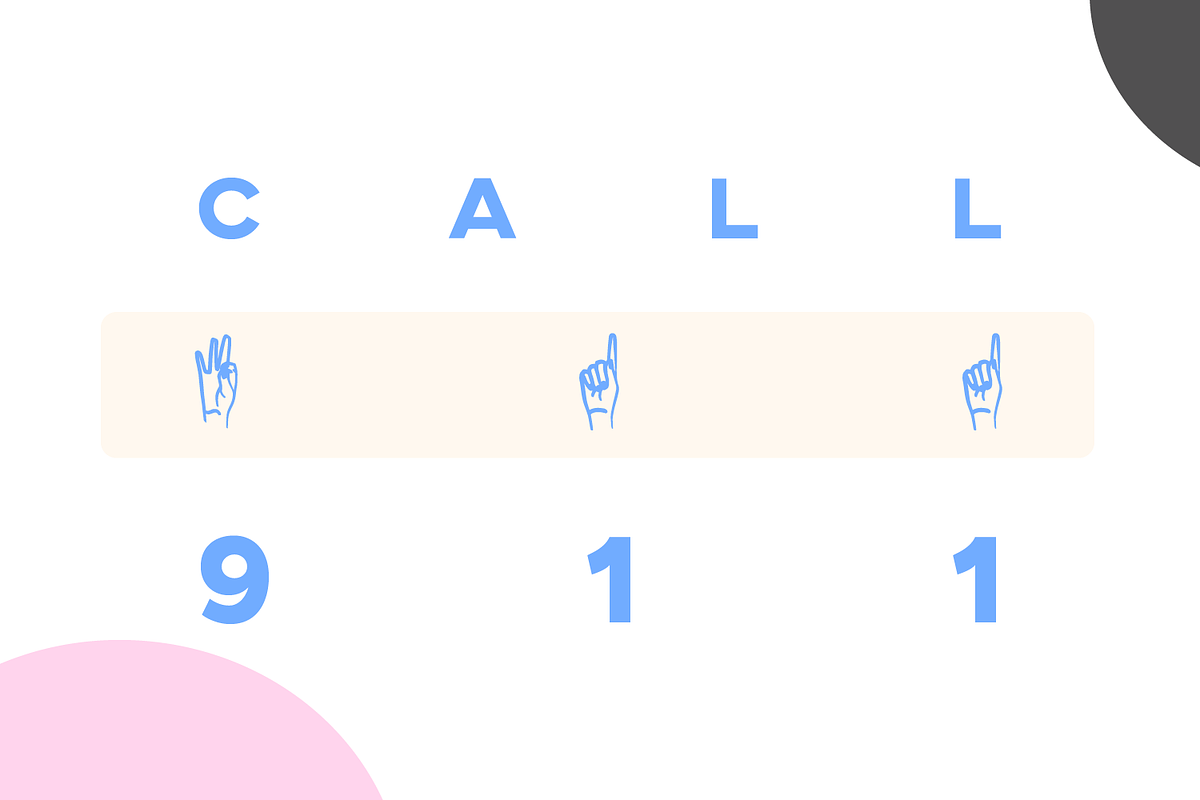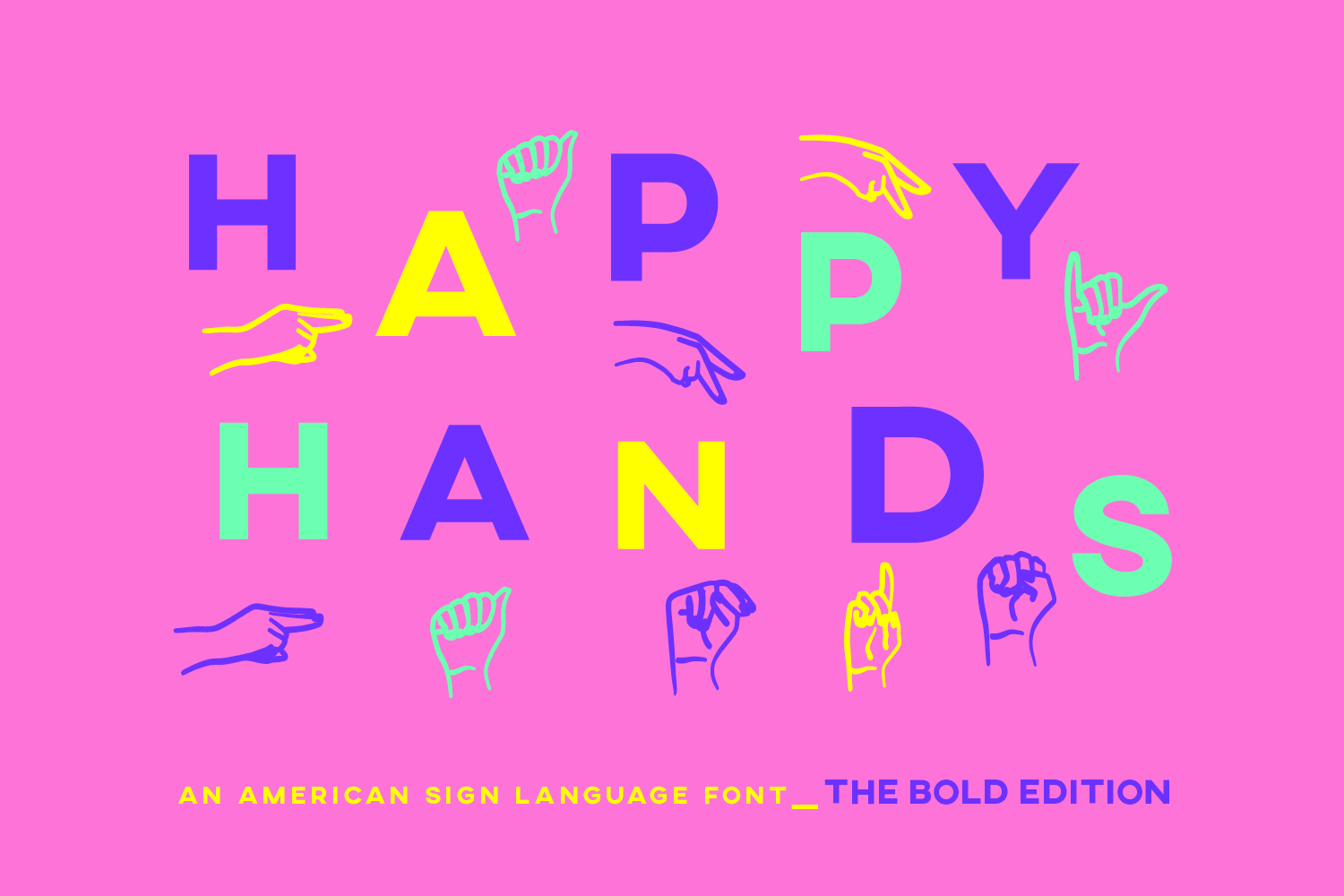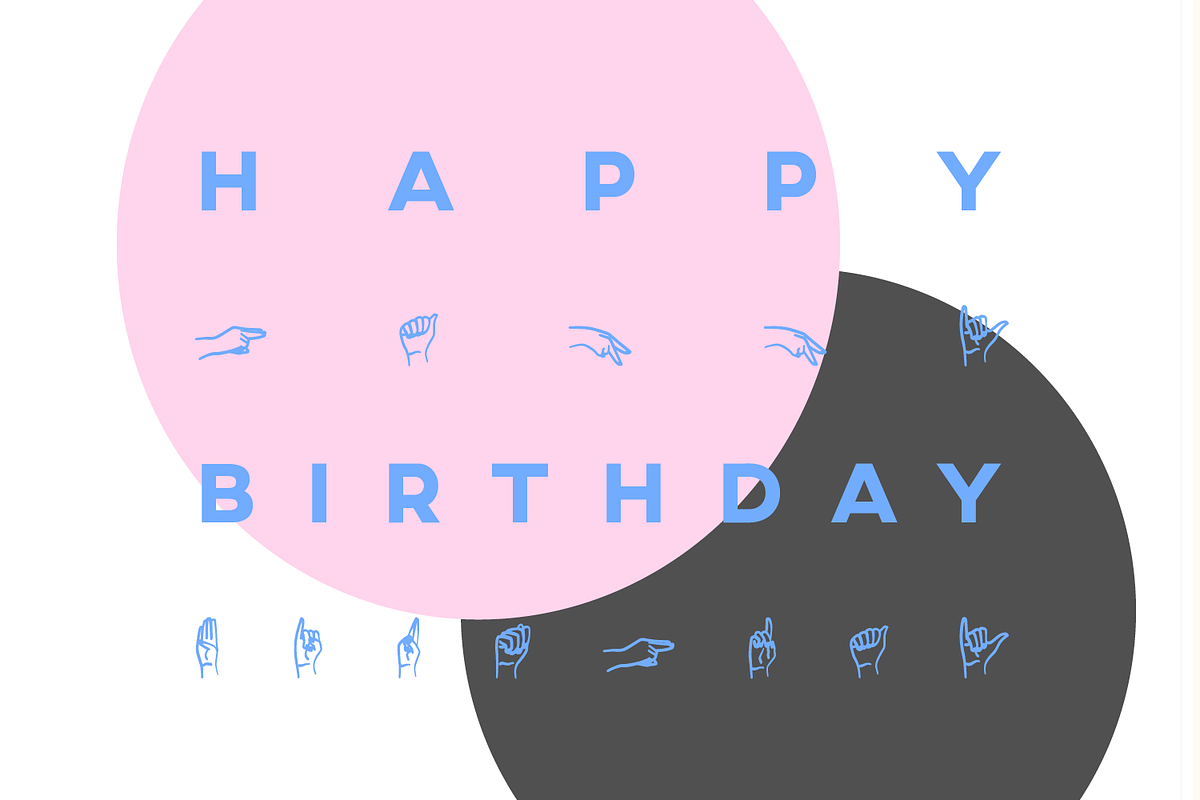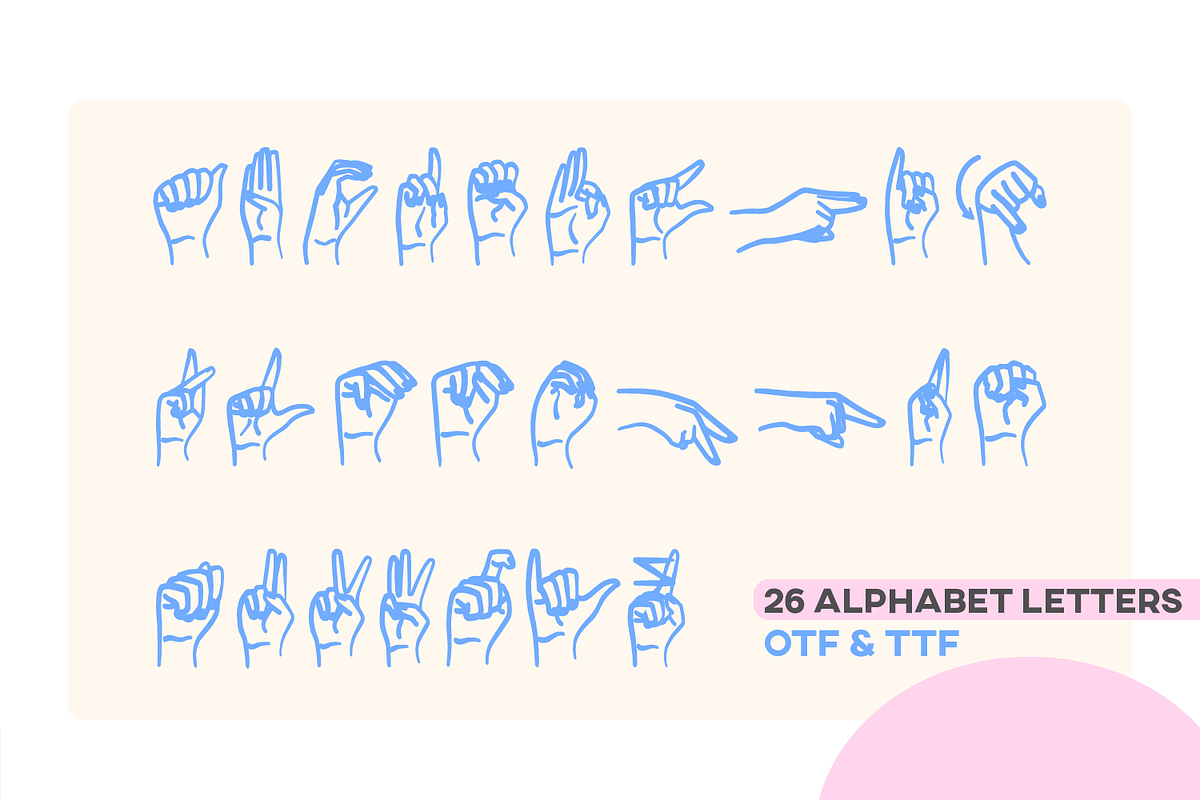
ASL Font American Sign Language Type
ASL Font American Sign Language Typeface Alphabet Numbers
I am very happy to introduce the BOLD version of "Happy Hands", a fun way to learn and use the American Sign Language !
"Happy Hands - Bold" is an American Sign Language Font.
"Happy Hands - Bold" comes in uppercase & numbers. Letters range from A to Z and numbers from 0 to 10. You can see all the glyphs displayed in the preview images above.
For example, you can use this font for:
- typography designs
- text on illustrations
- print text on various objects such as cards, mugs, t-shirts, notebooks, wallpaper, wedding invitations, birthday cards, etc
& more !
Be creative and have fun ! 🙂